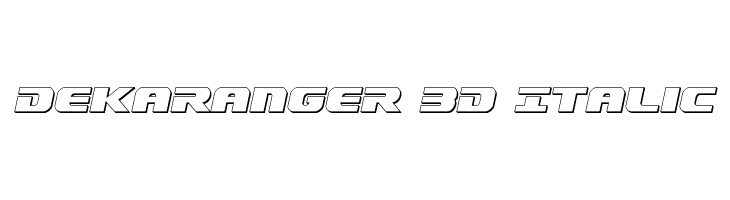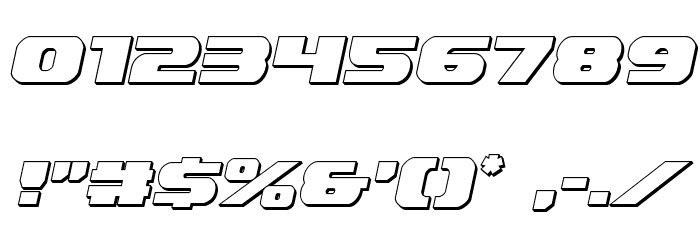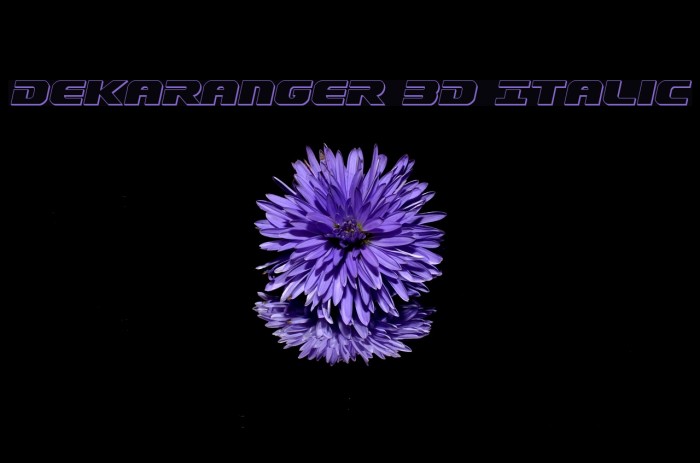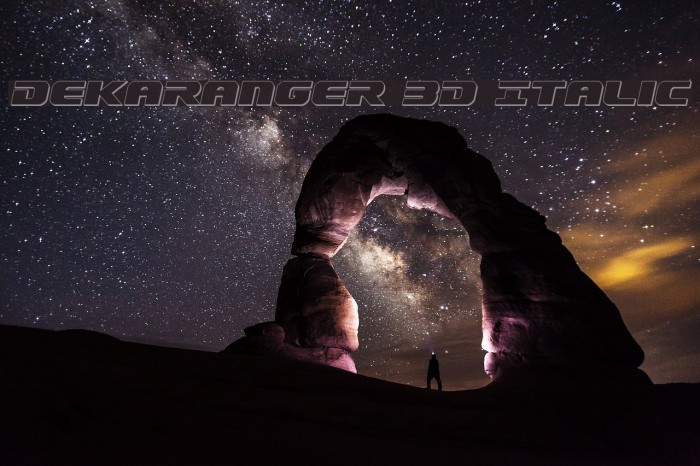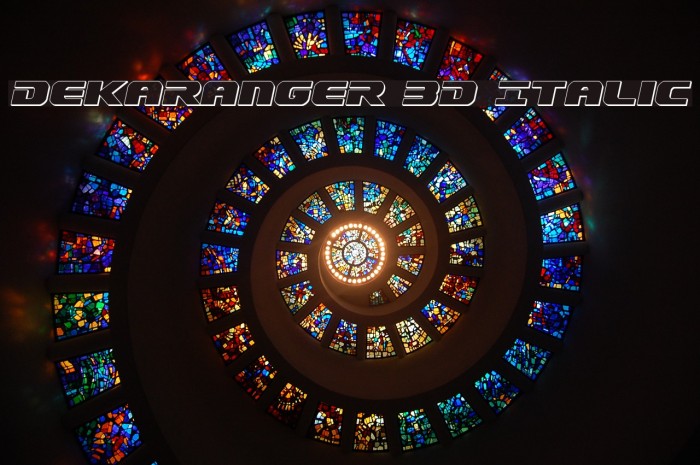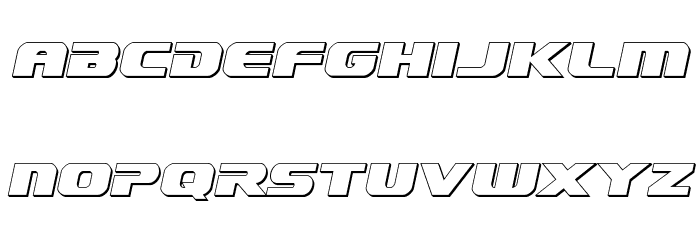
Dekaranger 3D Italic Font
This font features a bold, three-dimensional style with a futuristic and dynamic appearance. The characters are outlined, giving them a hollow look that enhances the 3D effect. The italic slant adds a sense of motion and speed, making it ideal for projects that require a modern and energetic vibe. The uppercase and lowercase letters maintain a consistent style, with sharp angles and clean lines. The numerals and special characters are designed to match the overall aesthetic, ensuring a cohesive look across all text elements.
A bold, 3D italic font with a futuristic and dynamic style.
• Proposed Projects: Ideal for sci-fi themed designs, video game titles, tech branding, and dynamic posters.